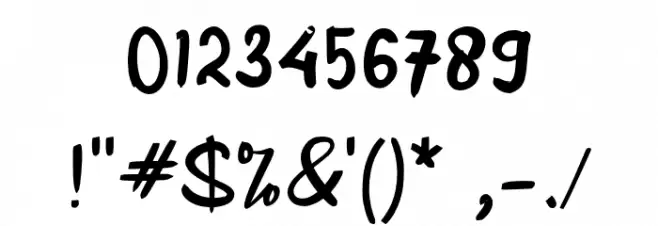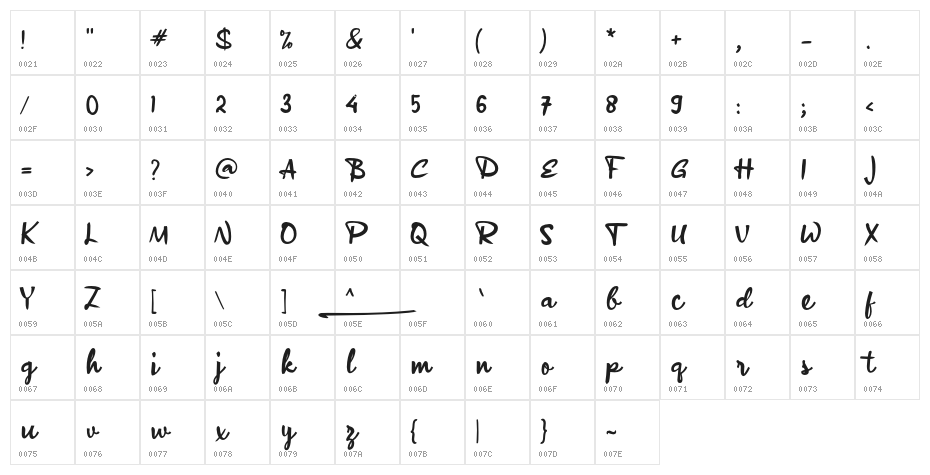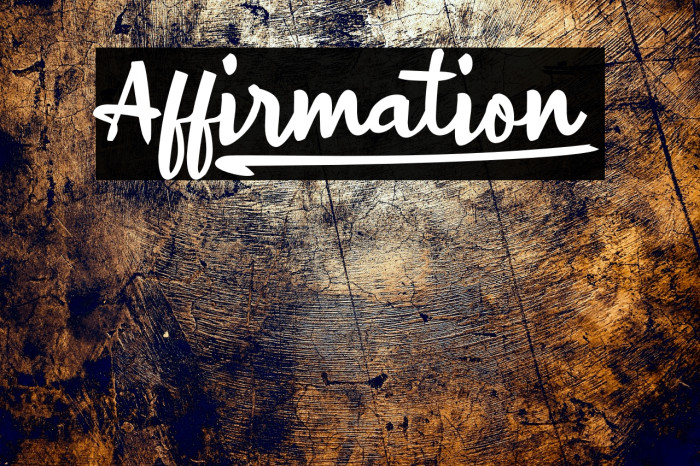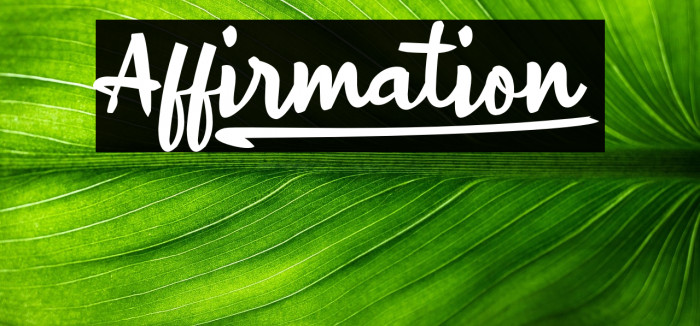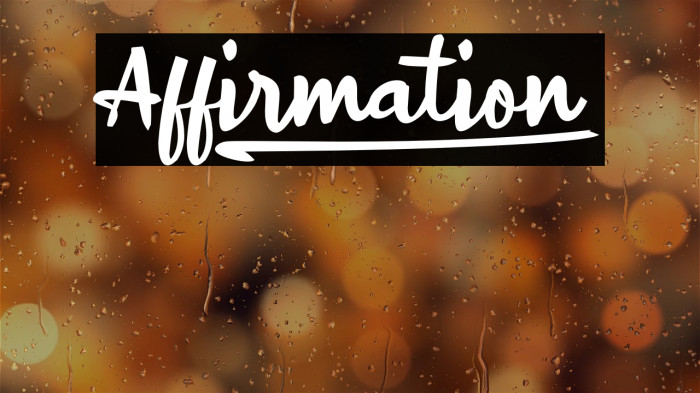
Affirmation_ Font
Affirmation_ Description
This font exhibits a lively and expressive handwritten style, characterized by its fluid and dynamic strokes. The uppercase letters are bold and slightly slanted, conveying a sense of movement and energy. The lowercase letters maintain a consistent flow, with rounded edges and a playful demeanor. Numbers and special characters are crafted with the same attention to detail, ensuring uniformity across the set. The overall appearance is casual yet sophisticated, making it suitable for projects that require a personal touch.
A lively handwritten font with fluid, dynamic strokes and a playful demeanor from Uncategorized fonts.
- Proposed Projects: Ideal for greeting cards, invitations, personal branding, and creative projects that require a personal and expressive touch.
- Use Case: Logos, Headlines, Creative projects